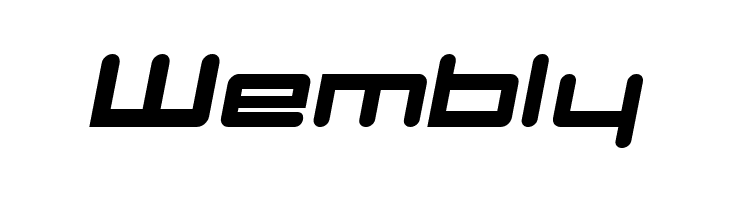
Predataur Condensed Italic Font
- Font: Predataur Condensed Italic
( Font by Pedro Munoz Pastor - fodkito.deviantart.com )
A geometric, angular font inspired by ancient Greek inscriptions.